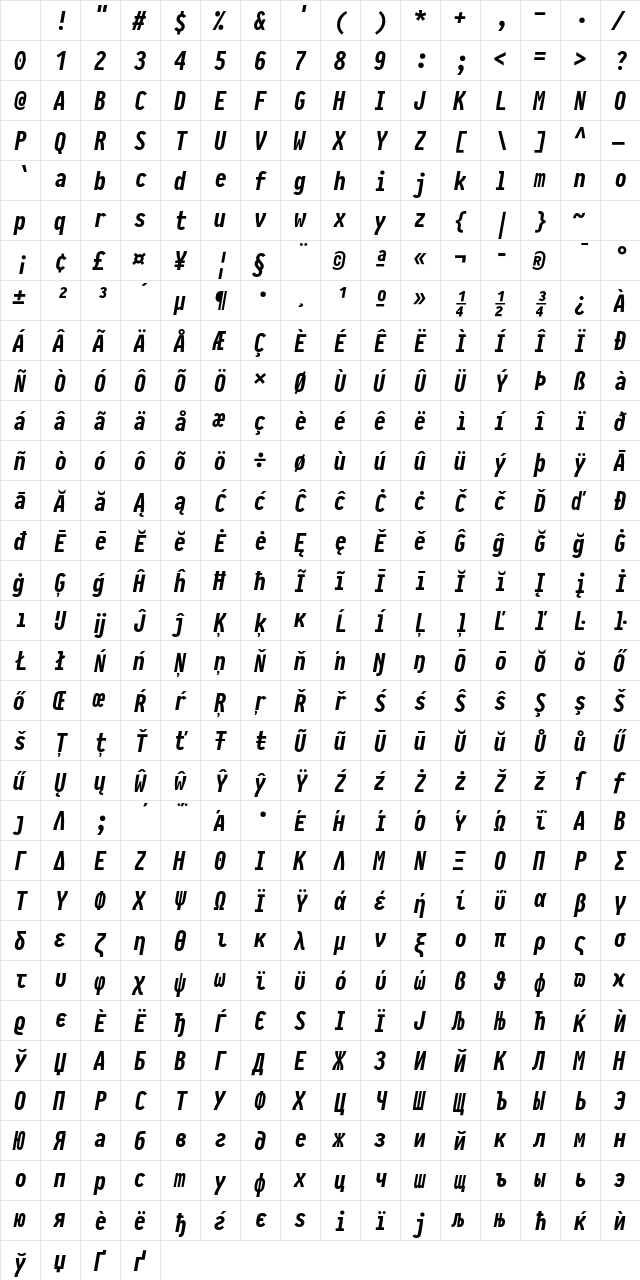
Complete Pragmata Pro Bold Italic glyph index. Displaying only characters natively supported by Pragmata Pro Bold Italic font.
Pragmata Pro is a composed and adaptable typeface that performs quietly and consistently across a wide range of design contexts. The slanted form adds forward momentum and visual energy. Its bold stroke weight gives it real presence on the page.
Pro Tip: Use Pragmata Pro for emphasis, pull quotes, and subheadings where its slanted energy can add rhythm to the layout.